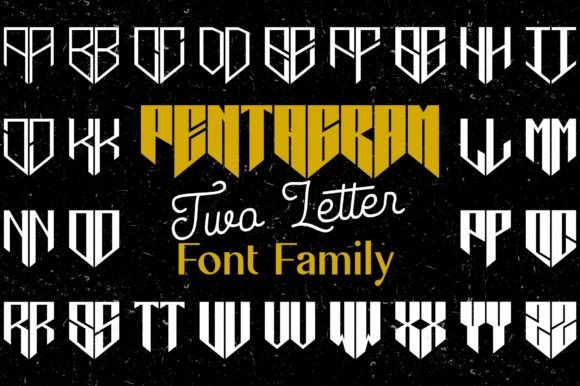
Immerse yourself in the realm of classic elegance with Pentagram Two Letter Font, a creation by IntuisiCreative that redefines the art of monogram fonts. This extraordinary font exudes sophistication, simplicity, and versatility, making it the perfect choice for those seeking a timeless and memorable design.
Compose personalized logos that radiate distinction, effortlessly crafting a visual identity that resonates with your audience. Let your brand take center stage with Pentagram Two Letter, where each monogram tells a story of uniqueness and charm.
With its meticulously designed interlocking letters, Pentagram Two Letter transcends the boundaries of ordinary fonts. Its clean and modern aesthetic provides a canvas for creativity, allowing you to express your individuality in a myriad of design projects.
Envision wedding invitations imbued with an aura of timeless elegance, corporate stationery that commands attention, or social media posts that captivate and engage. Pentagram Two Letter adapts seamlessly to any canvas, adding a touch of sophistication that elevates your designs to new heights.
In a world of visual clutter, Pentagram Two Letter emerges as a beacon of clarity and refinement. Its minimalist approach ensures that your message shines through, leaving a lasting impression on your audience.
Embrace the allure of Pentagram Two Letter and embark on a design journey like no other. Unleash your creativity, let your imagination soar, and witness the transformative power of this remarkable font.